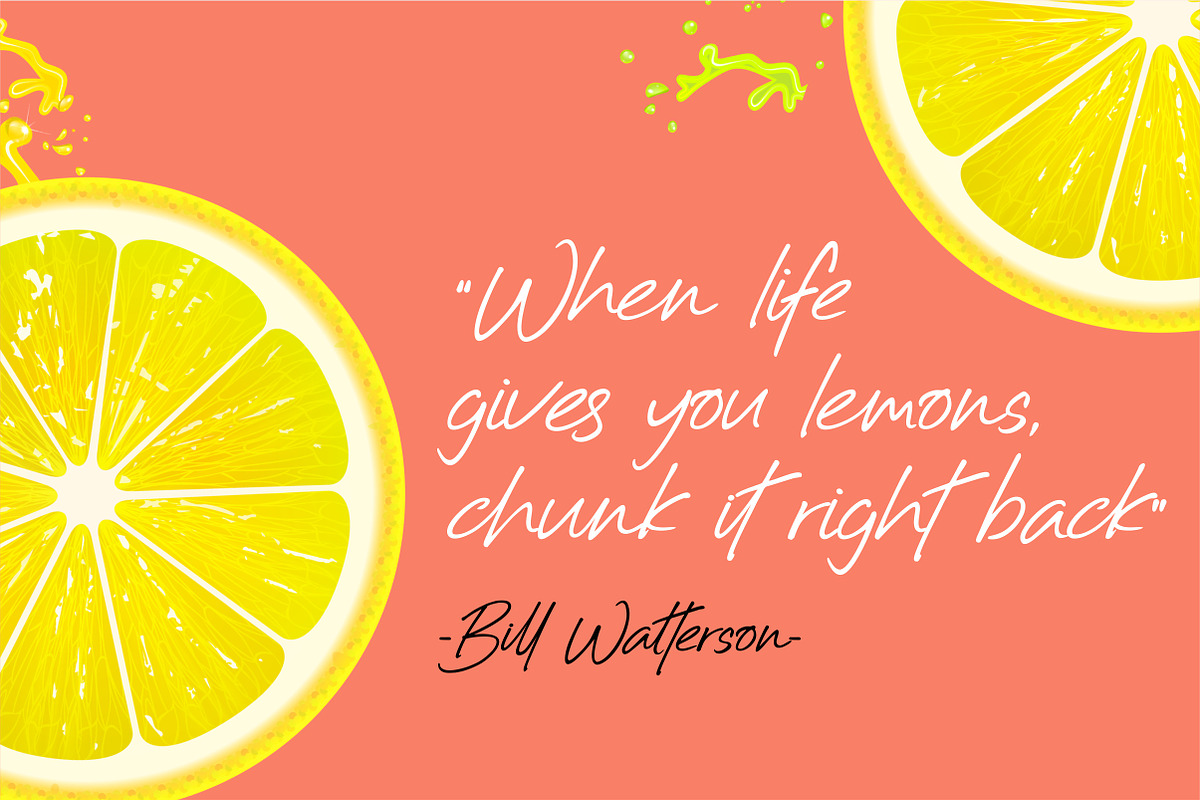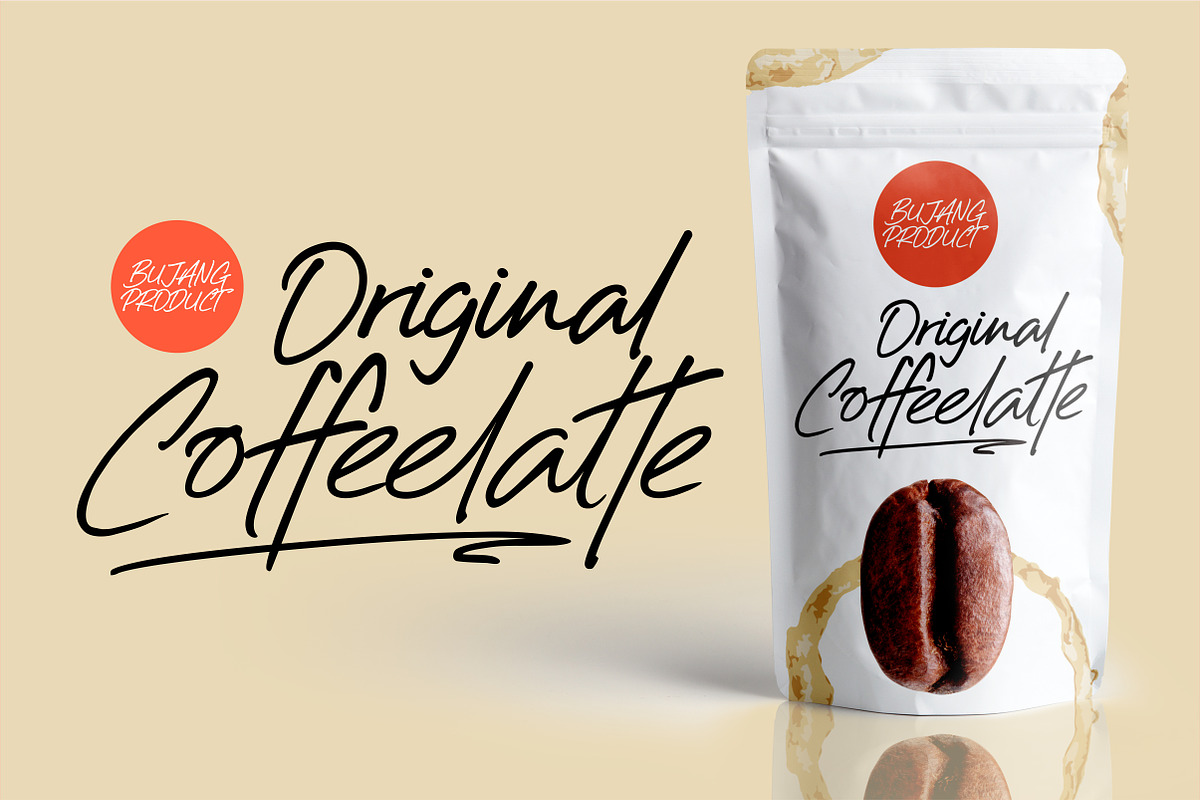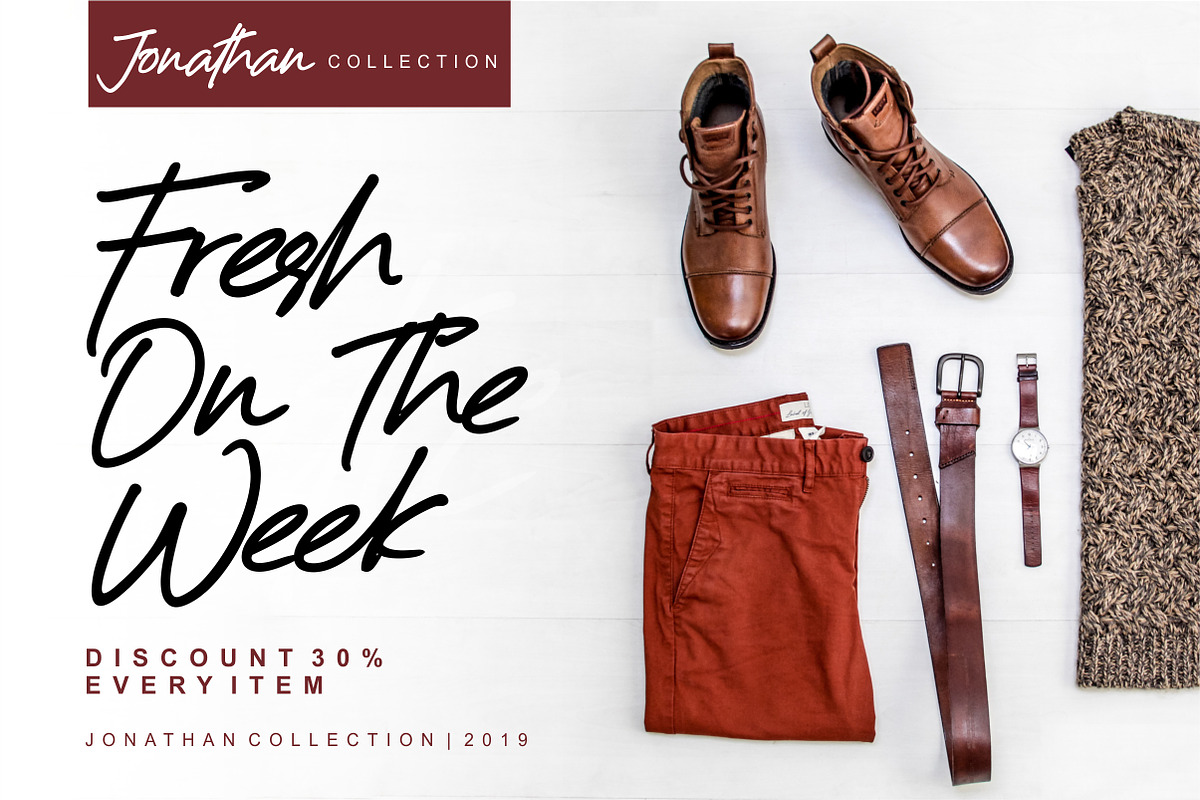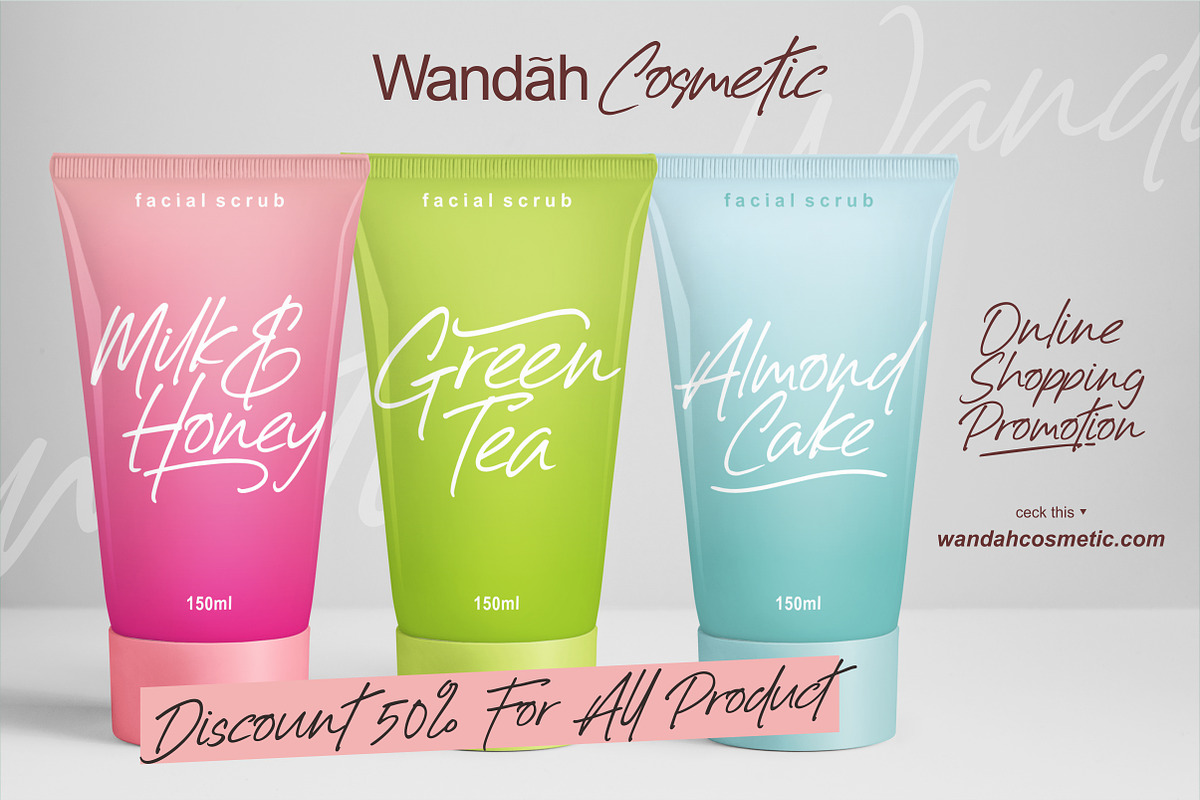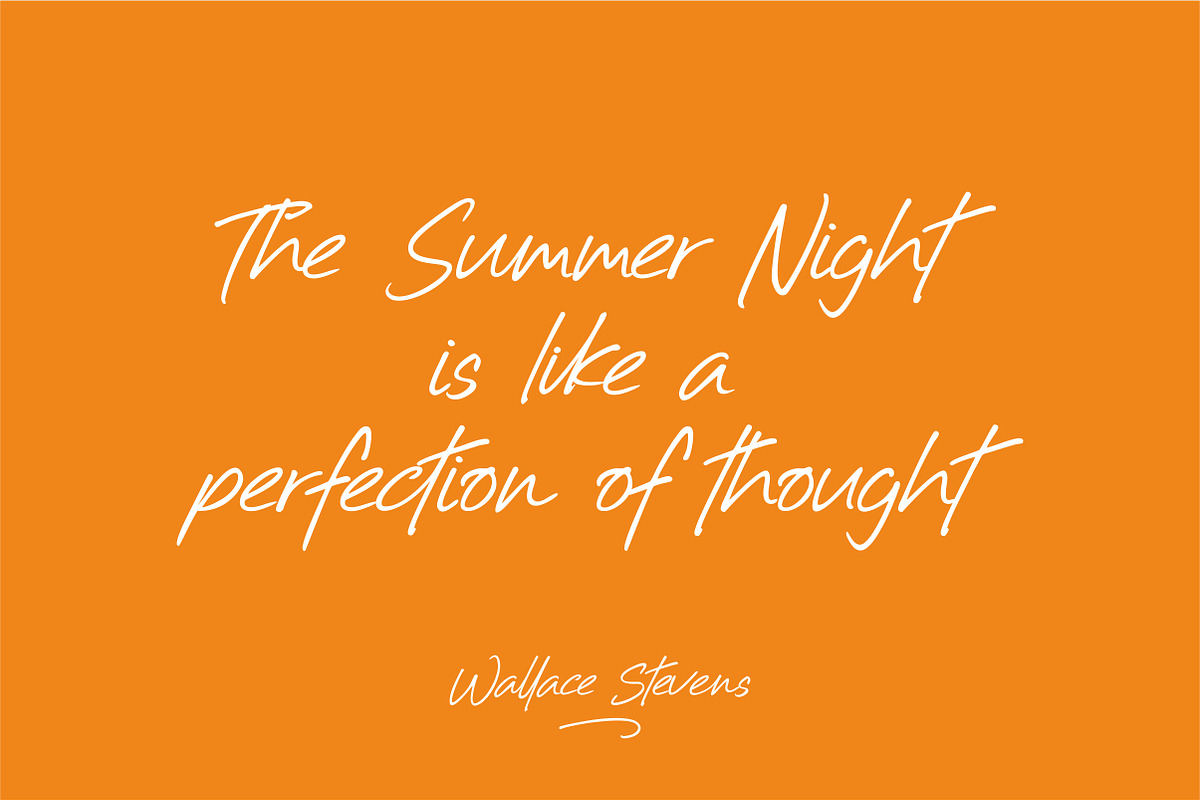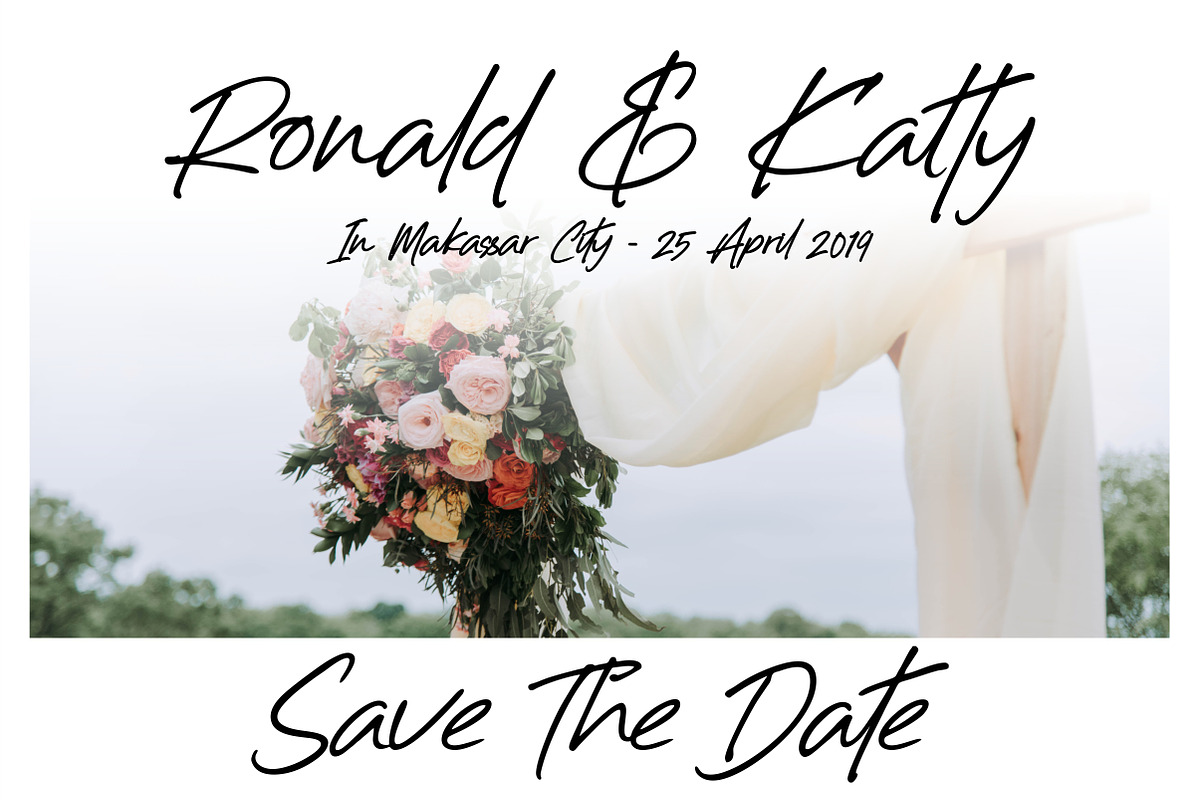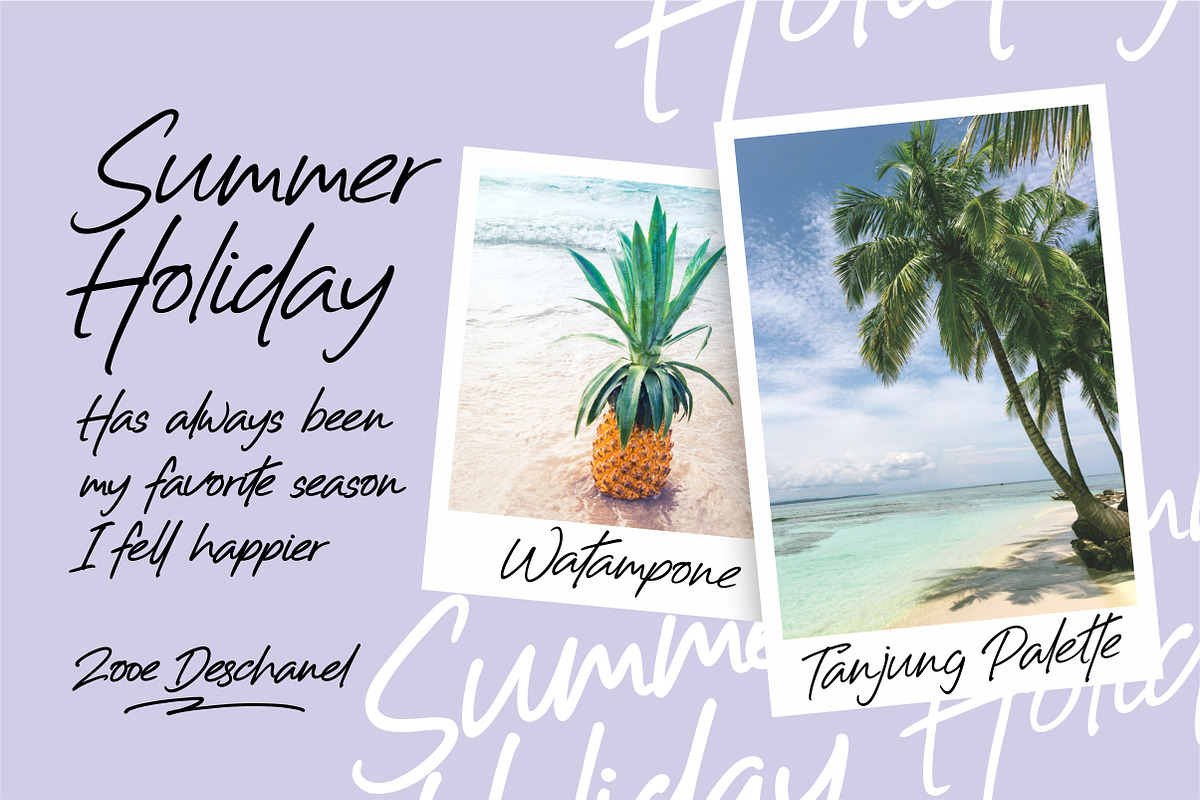
Billistone A Handwritten Font
Billistone is a unique handwritten font. Its unique flow and easy signature style makes it perfect to use for logos, signatures, quotes, badges, labels, packaging design, blog headlines or simply use it in your next design project.
Why Billistone A Handwritten Font is worth a look
Billistone A Handwritten Font by ErgibiStudio fits naturally into Branding, posters, packaging, typography.